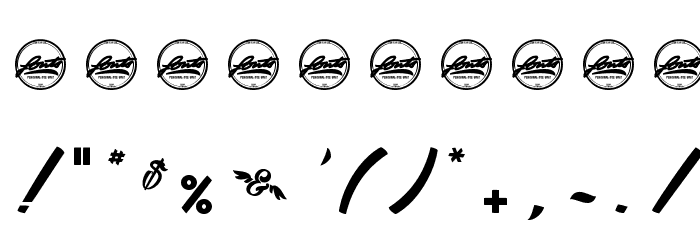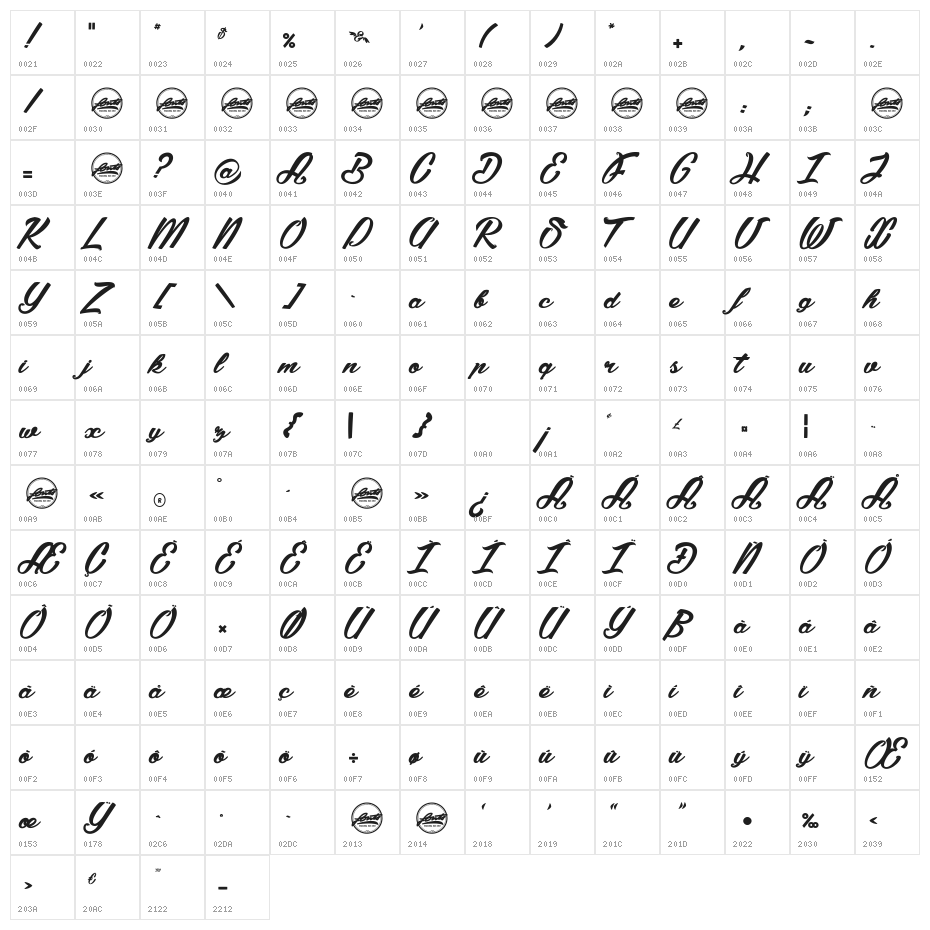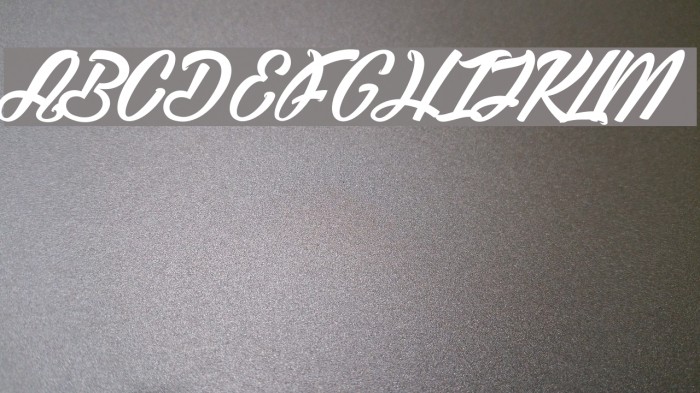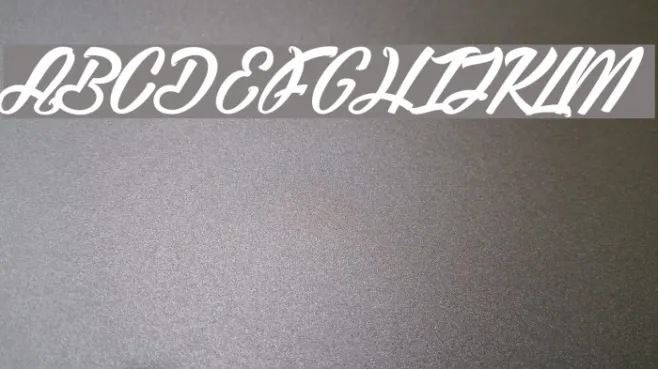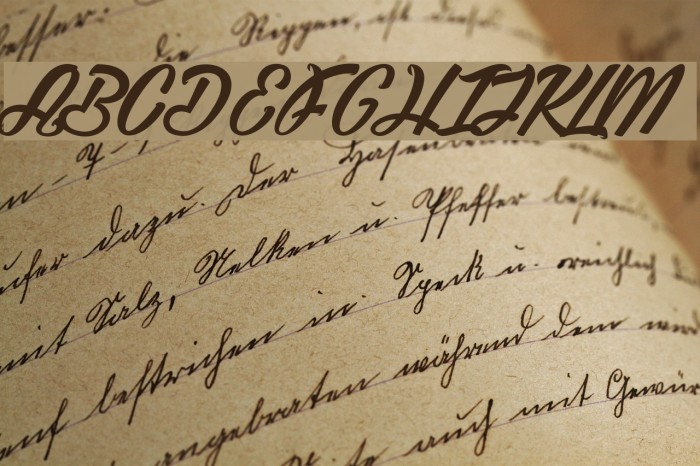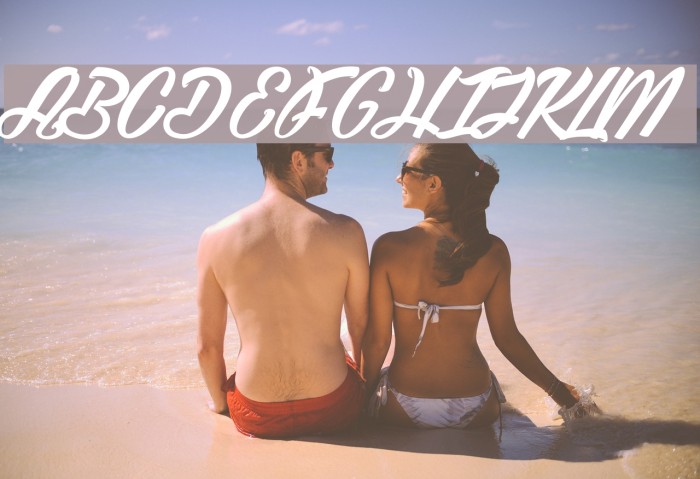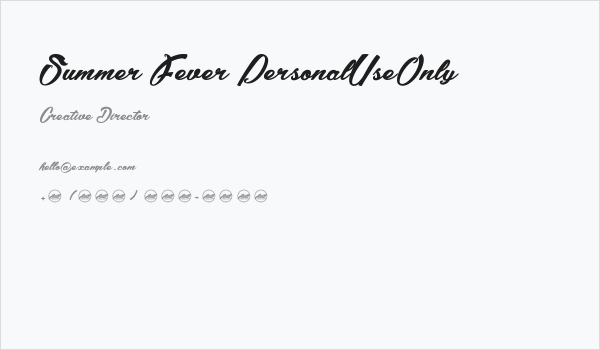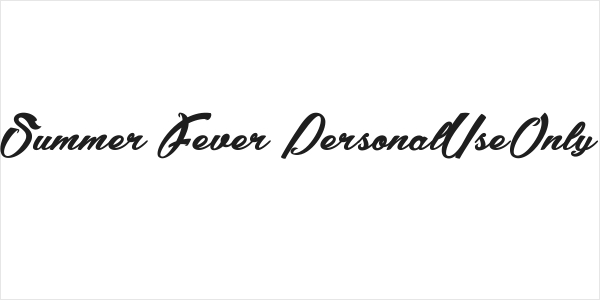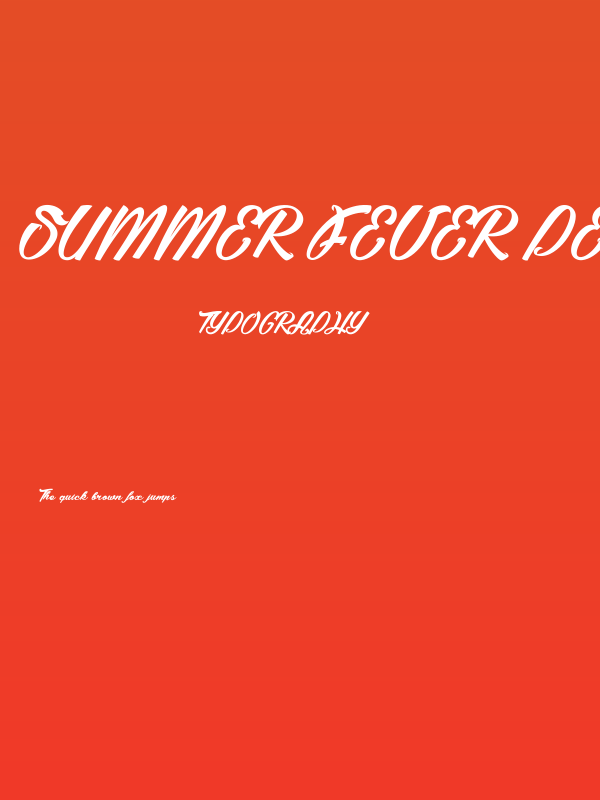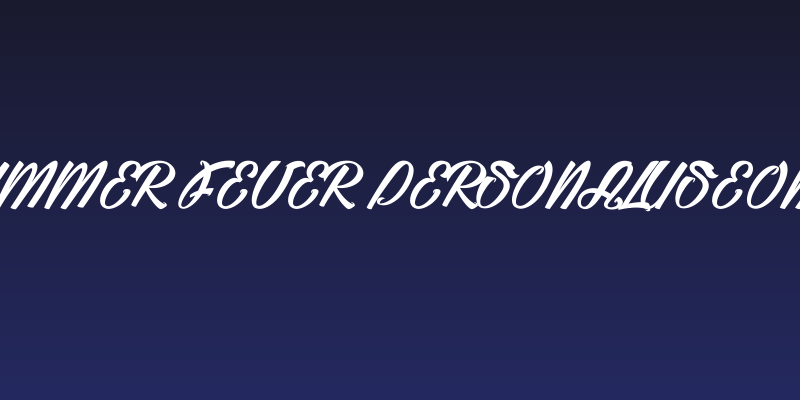
Summer Fever_PersonalUseOnly Font
Summer Fever_PersonalUseOnly Description
This font features a bold, flowing script style that exudes a sense of elegance and flair. The characters are intricately designed with smooth curves and a consistent stroke width, creating a harmonious and cohesive look. The uppercase letters are particularly striking, with their dramatic loops and swashes, while the lowercase letters maintain a more subtle yet equally stylish appearance. The numerals and special characters are crafted to match the overall aesthetic, ensuring a seamless integration into any design. This font is perfect for projects that require a touch of sophistication and personality.